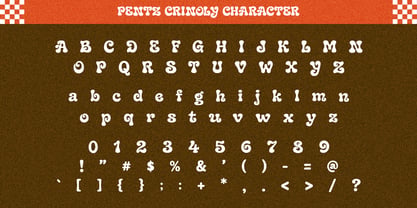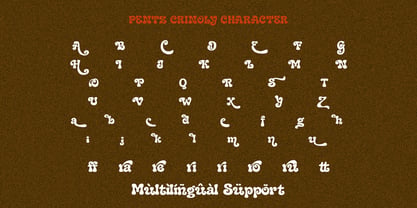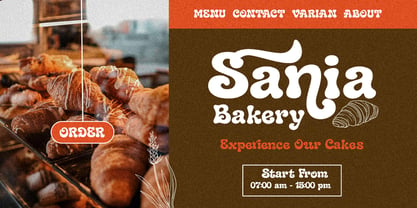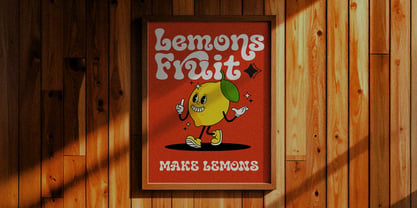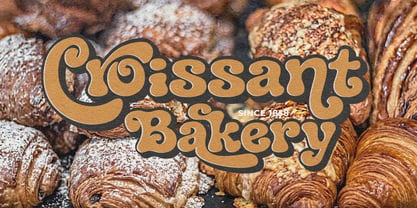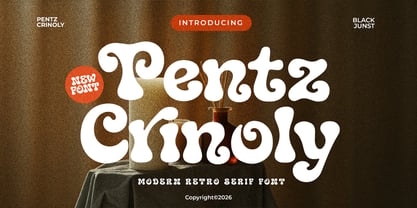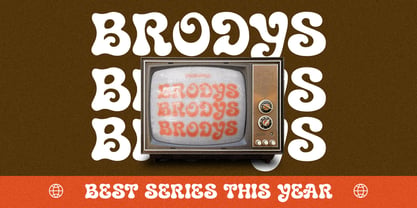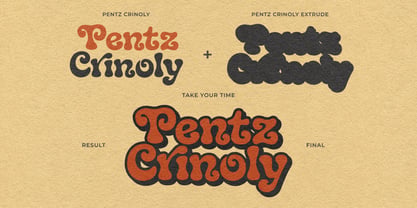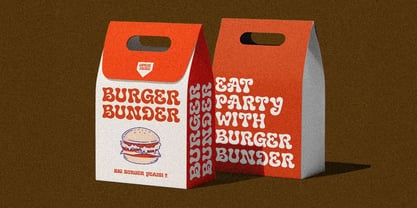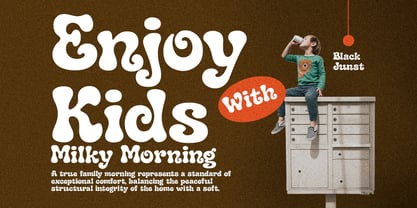
Pentz Crinoly
by Black Junst
The Pentz Crinoly Font Family was designed by Maulana Semar and published by Black Junst. Pentz Crinoly contains 2 styles and family package options. More about this family
Pentz Crinoly is a bold and expressive retro serif font that blends the timeless charm of vintage typography with a fresh modern twist. Designed with smooth curves, chunky letterforms, and playful details, this typeface instantly brings a sense of fun, nostalgia, and personality to any creative project.
Inspired by the golden era of groovy design, Pentz Crinoly captures the warmth of classic retro aesthetics while remaining versatile for today's branding needs. Its unique swashes, soft edges, and eye-catching shapes make every word feel lively, memorable, and full of character.
Whether you're creating branding, packaging, posters, social media content, logos, merchandise, book covers, café branding, children's products, or creative editorial layouts, Pentz Crinoly delivers a perfect balance of retro, groovy, playful, and modern vibes.
Designers: Maulana Semar
Foundry: Black Junst